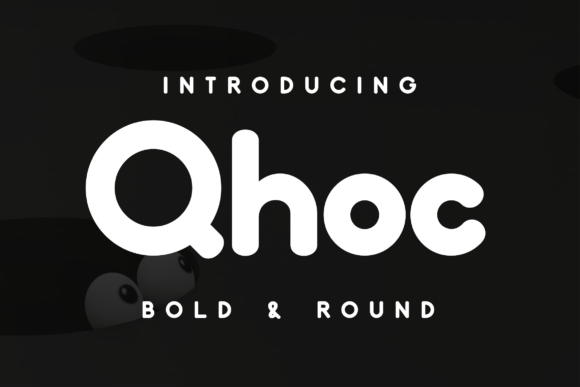
Embellish your creations with Qhoc Font, the captivating sans serif font family designed to evoke elegance and charm. This enchanting font exudes a minimalist and clean vibe that effortlessly enhances any design project. Qhoc Font is the perfect choice for book covers, magazines, social media posts, and invitations. Its graceful curves and smooth lines add a touch of sophistication to any project, making it a favorite among designers and creatives worldwide.
Qhoc Font is not just a font; it's an emotion. Its rounded edges and delicate strokes create a sense of warmth and whimsy, capturing the essence of little girls' innocence and playfulness. The font's playful personality is sure to resonate with young girls, making it ideal for designs targeting this audience. Qhoc Font is more than just a font; it's a storytelling tool that allows you to craft whimsical and enchanting designs that capture the imagination of little girls everywhere.
Unlock your creativity and let Qhoc Font be your muse. This versatile font family adapts seamlessly to various design styles, allowing you to express your individuality and create designs that reflect your unique vision. Whether you're a seasoned designer or just starting, Qhoc Font is the perfect tool to elevate your designs and captivate your audience.
Join the creative revolution and embrace Qhoc Font today. Experience the joy of creating designs that resonate with little girls' hearts and leave a lasting impression. Qhoc Font is more than just a font; it's a gateway to a world of creativity and imagination. Let your designs blossom with the enchanting allure of Qhoc Font.